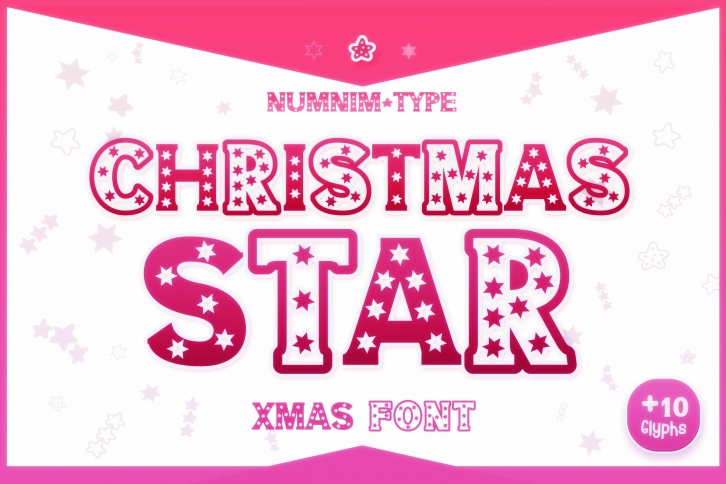
Christmas Star winter Balloon kids Procreate s is a beautiful font that was designed by numnimtype. It's a great choice for designers and creatives who need such a font. It was released on October 26, 2021 and the file size is 17.41 MB. Christmas Star winter Balloon kids Procreate s may give a more youthful, expressive and casual look to your project. It is a very beautiful, refined, elegant, and high-quality font.